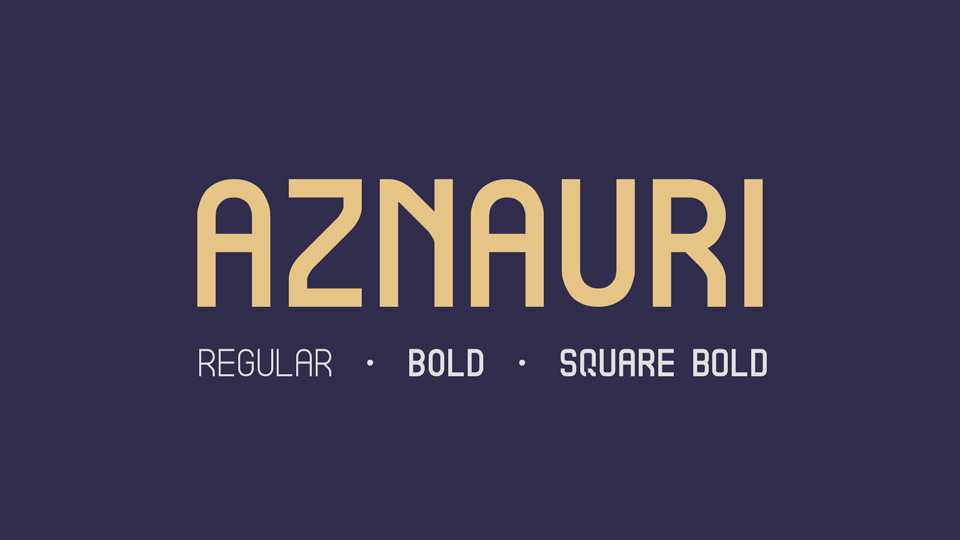
Download Aznauri typeface, a display font family consisting of only capital letters. Aznauri is well suited for titles, buttons, action links and everything else to which the case of a letter doesn’t matter.
Designer: Archil Imnadze